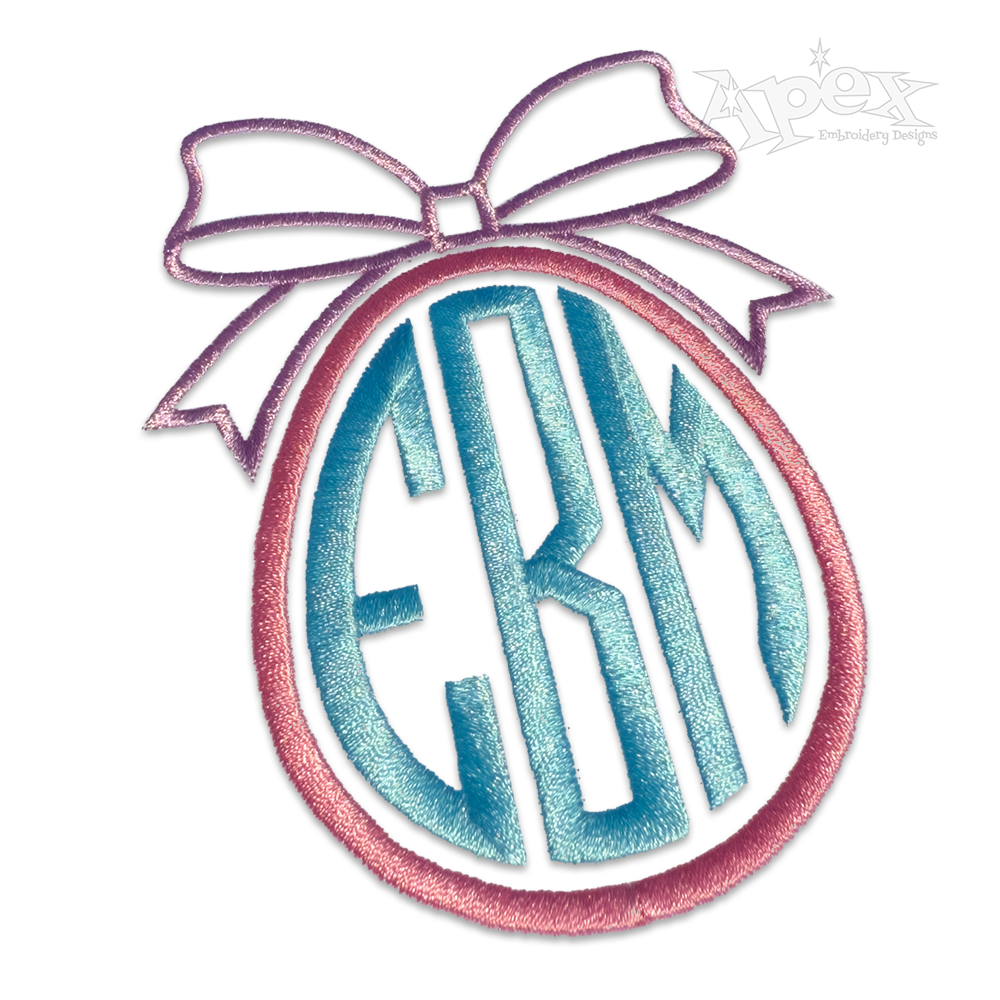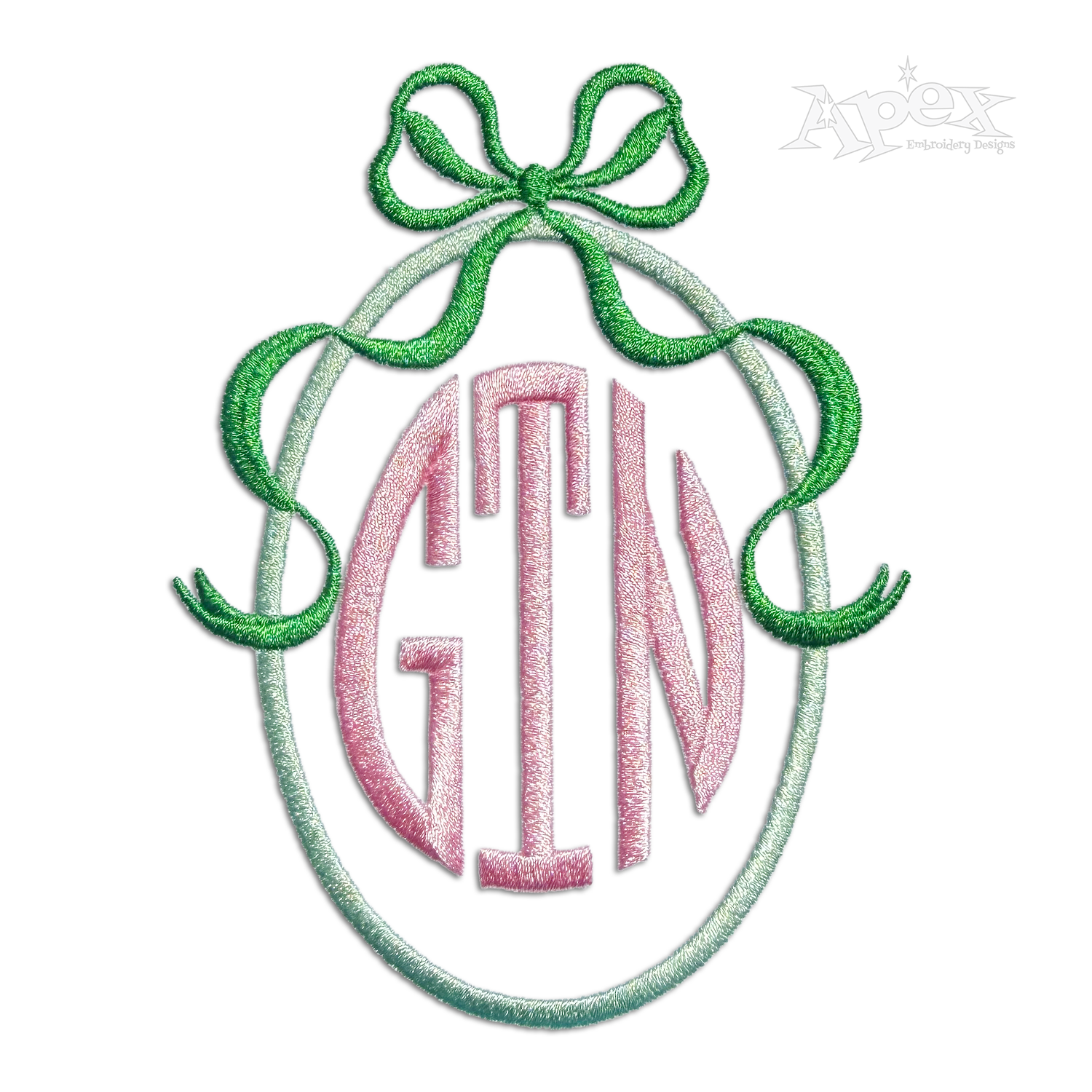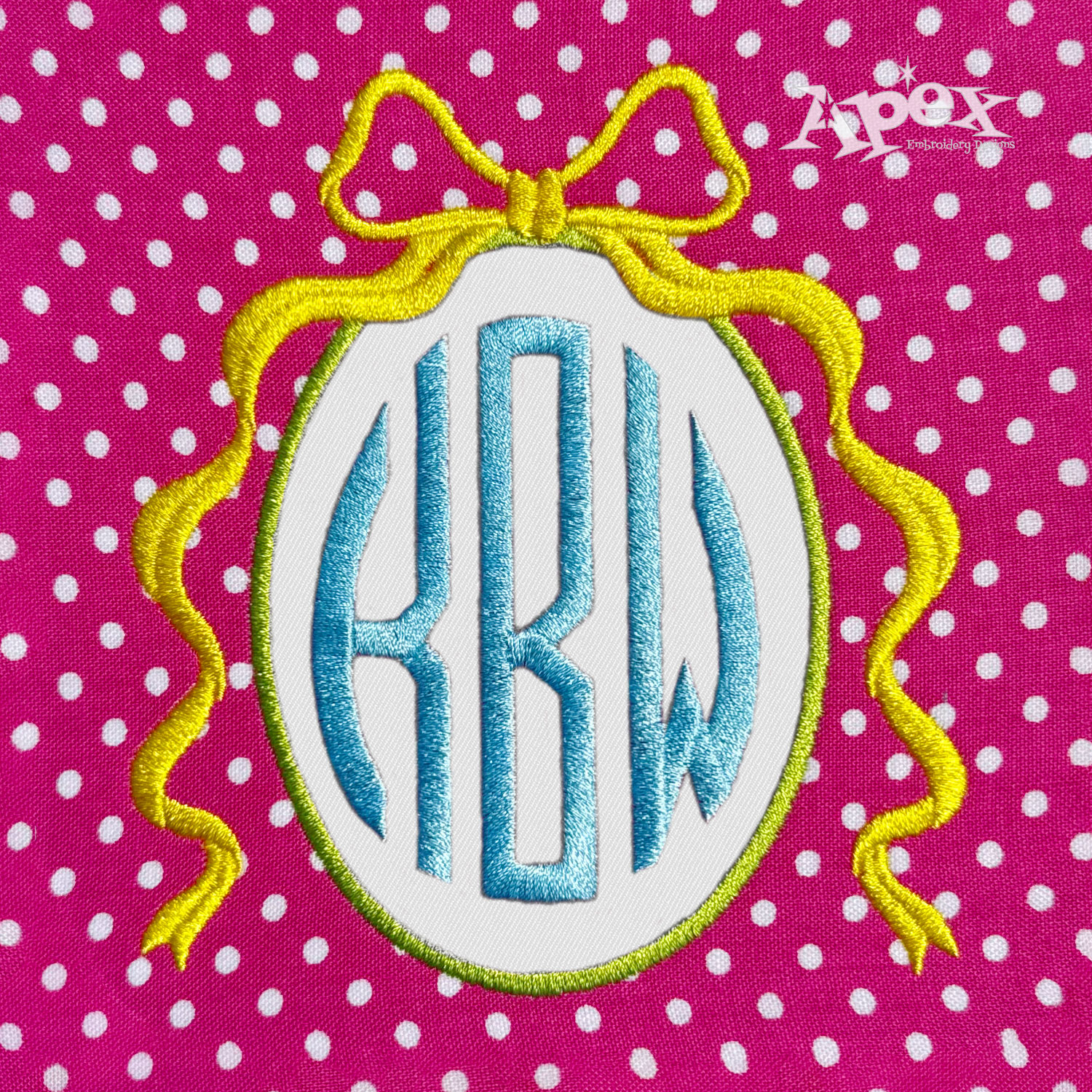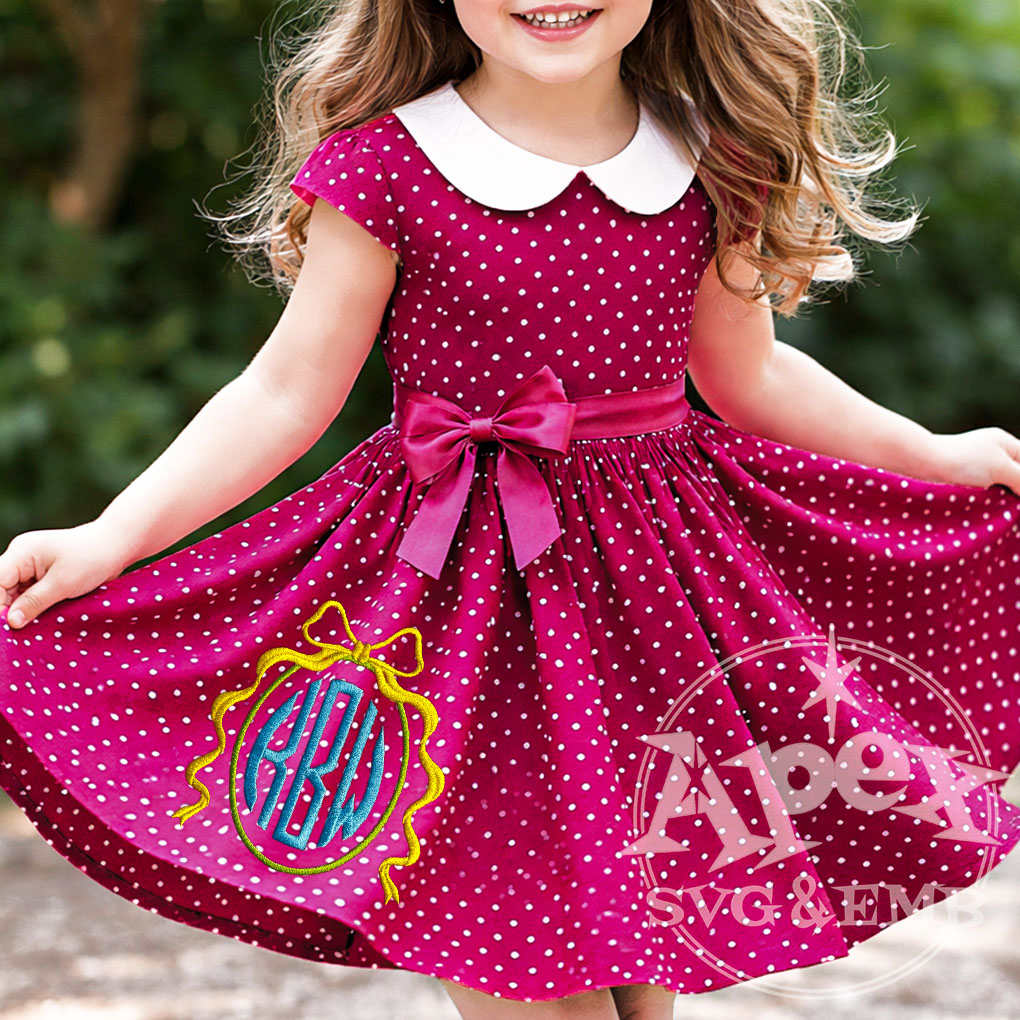
Easter Egg Monogram Embroidery Font
Inspired by the quiet optimism of early spring and the treasured custom of Easter celebrations, this monogram font reimagines traditional heraldry through a whimsical, seasonal lens. When digitizing each character, our goal was to capture the graceful, organic geometry of a spring egg—softly tapered at the crown, gently swelling at the base, and perfectly harmonious when assembled. It evokes crisp morning light on freshly pressed pastel linens, children racing across dew-kissed lawns with wicker baskets, and the sweet nostalgia of bespoke holiday treasures stitched to endure across generations.
Designed for effortless versatility across garments, home accents, and giftables, this 3-letter oval monogram collection provides complete three-part sets alongside coordinating decorative borders:
- Letter Configurations: Complete Left, Center, and Right alphabet sets engineered specifically to assemble into a cohesive egg-shaped silhouette.
- Bonus Frames: Five decorative oval and seasonal egg-shaped embroidery frames tailored to encase your monograms flawlessly.
Project Ideas for Easter Egg Monogram Embroidery Font
- Bespoke Easter Basket Liners: Personalize gingham, linen, or duck canvas basket drop-in liners with each family member’s custom monogram for an enduring holiday heirloom.
- Heirloom Brunch Table Linens: Elevate hemstitch dinner napkins, cocktail squares, and table runners using soft pastel rayon or silky cotton threads.
- Children's Holiday Outfits: Stitch delicate 1-inch monograms on baby rompers, heirloom pinafores, Peter Pan collars, and cardigan chests for Sunday gatherings.
- Canvas Totes & Pouch Keepsakes: Create personalized treat bags, velvet jewelry pouches, or springtime market totes adorned with the monogram and a decorative frame.
- Nursery Accents: Monogram waffle-weave baby blankets, decorative pillows, and daybed shams for a gentle touch of tailored elegance.
- Linen Napkin Corner Diagonal: Position the finished monogram 1.5 to 2 inches from the bottom right corner at a 45-degree angle to present a polished display whether tri-folded or draped inside a napkin ring.
- Basket Liner Facing: Center the monogram horizontally on the front-facing foldover flap, allowing generous clearance from the rim to ensure the design sits beautifully flat.
- Center Chest & Yoke: For children's heirloom wear, position the top edge of the monogram 1.5 to 2.5 inches below the neckline or centered precisely across the smocked or gathered front yoke.
- Cuff & Hem Accents: The compact 1-inch scale fits effortlessly on pajama cuffs, apron pockets, and hem borders for subtle, elevated personalization.
Easter Egg Monogram Embroidery Font Craft & Letterform Details
Transforming standard typography into a unified, egg-shaped contour requires deliberate manual digitizing rather than simple geometric distortion. The outer edges of the flanking left and right characters are sculpted with sweeping parabolic curves that naturally lead the eye inward, while their inner margins remain disciplined and vertical to frame the central letter without visual clutter. The center initial commands the composition with a taller, statelier proportion, gracefully swelling in the middle and tapering toward the apex.
Every satin stitch is calibrated with variable stitch densities and deliberate needle angles that follow the natural curvature of the oval. We built generous underlay foundations and customized pull compensation into every stroke, preventing fabric pinch and ensuring that your finished stitch-out maintains its perfectly crisp, curved perimeter—whether you are stitching onto smooth linen or lofty terry cloth. The resulting embroidery delivers a radiant, light-catching sheen that turns simple thread into a treasured springtime heirloom.